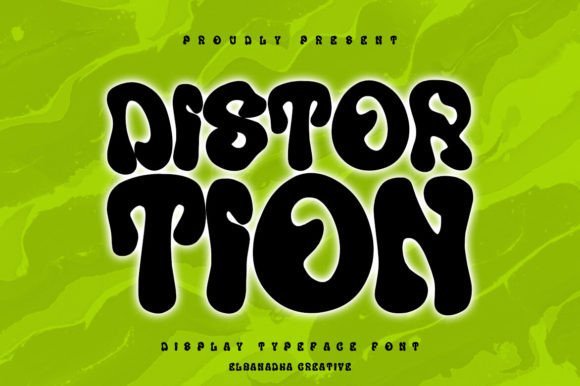
Unleash Your Creativity with the Distortion Font
Remember that moment when you finally nailed the perfect design concept, and everything fell into place? The colors, the typography, the overall vibe – it all came together to create something truly special. And then, you realized that one key element was missing: a font that would take your design to the next level.
Enter the Distortion Font, a cute and quirky display font that adds an incredibly joyful touch to your designs. Its playful and whimsical nature makes it the perfect addition to any creative project. Whether you’re working on a branding project, a social media campaign, or a print advertisement, the Distortion Font will bring a smile to your audience’s faces and make your design stand out from the crowd.
Distortion Font Key Features
- Font Style: Distortion Font is a unique, futuristic font with a highly stylized and distorted appearance.
- Language Support: Supports a wide range of languages, including Latin, Cyrillic, and Greek alphabets, making it a versatile font for international design projects.
- Unique Characteristics: Distortion Font features a highly stylized and distorted appearance, with bold lines, irregular shapes, and a futuristic feel, making it ideal for designs that require a unique and eye-catching look.
Distortion Font Review
Overall, I was excited to dive into the Distortion Font and see what it had to offer. The font has a lot of potential, but like any design tool, it’s not without its limitations.
- The Distortion Font has a unique, edgy look that’s perfect for creating a bold, attention-grabbing visual identity.
- The font is highly customizable, allowing designers to tweak the distortion levels to suit their specific needs.
- The Distortion Font is also highly versatile, working well for a range of applications from logos to typography-heavy posters.
- The font can be difficult to read in smaller sizes, which may limit its use in certain applications.
- The Distortion Font may not be suitable for use in formal or professional settings, as its edgy look may come across as unprofessional.
- The font’s customizability can also be a double-edged sword, making it difficult for designers to achieve a consistent look and feel.
Overall, the Distortion Font is a solid addition to any designer’s toolkit, offering a unique look and a high degree of customization. While it may have some limitations, it’s well worth checking out for designers looking to add some edge to their designs.
Tips for Getting the Most Out of Distortion Font
To get the most out of distortion font, experiment with different levels of distortion and direction to achieve unique effects. You can also combine distortion with other text effects, such as shading or outlines, to add depth and interest to your design.
Common Use Cases for Distortion Font
Distortion font is commonly used in creative and attention-grabbing designs, such as posters, flyers, and social media graphics. It’s also used in more subtle ways, such as in infographics and data visualizations, to add visual interest and emphasis to key information.